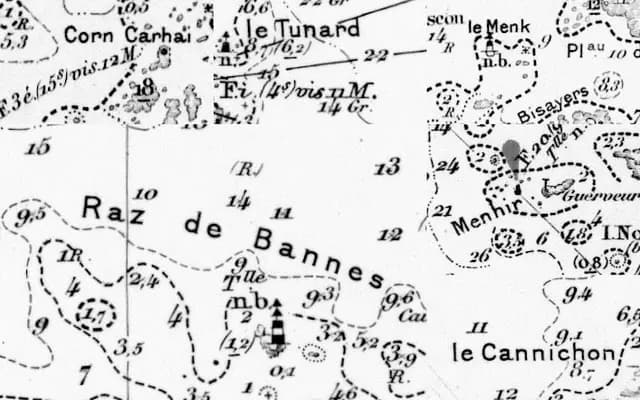
Abordage
A display typeface produced at the U+270D type school in France, with an aggressive graphic character suited to editorial and poster work.
Abordage is a student or faculty project from U+270D, the type design programme at EESAB in France. The name, meaning 'boarding' in French, suggests a forceful, confrontational character typical of display work with blackletter or aggressive graphic influences. Little additional detail is available from the page content.
The name and foundry context suggest a display typeface with blackletter or aggressive nautical-themed characteristics, though the page content provided is minimal. Classified as display based on available context.